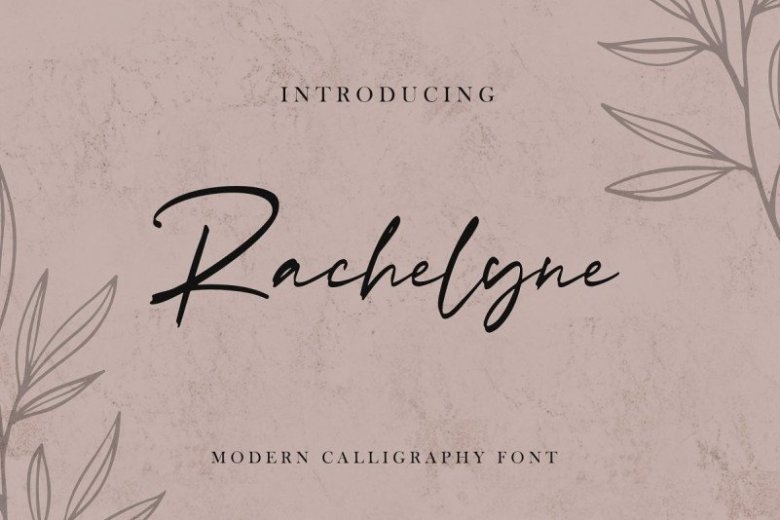
Rachelyne – Modern Calligraphy Font
Rachelyne – Modern Calligraphy Font is a modern font in a handwritten calligraphy style. This font was designed by handwriting, and it has a modern and unique forms of calligraphy, the writing style is very natural.
Rachelyne – Modern Calligraphy Font is a Calligraphy Script Font with Casual Style. This font is perfect for fashion brand, wedding invitation, business card, logo brand, signature, and also for calligraphy purpose.
This Font Template contains Classy, Elegant, Creative, Cool and has a Unique Concept.